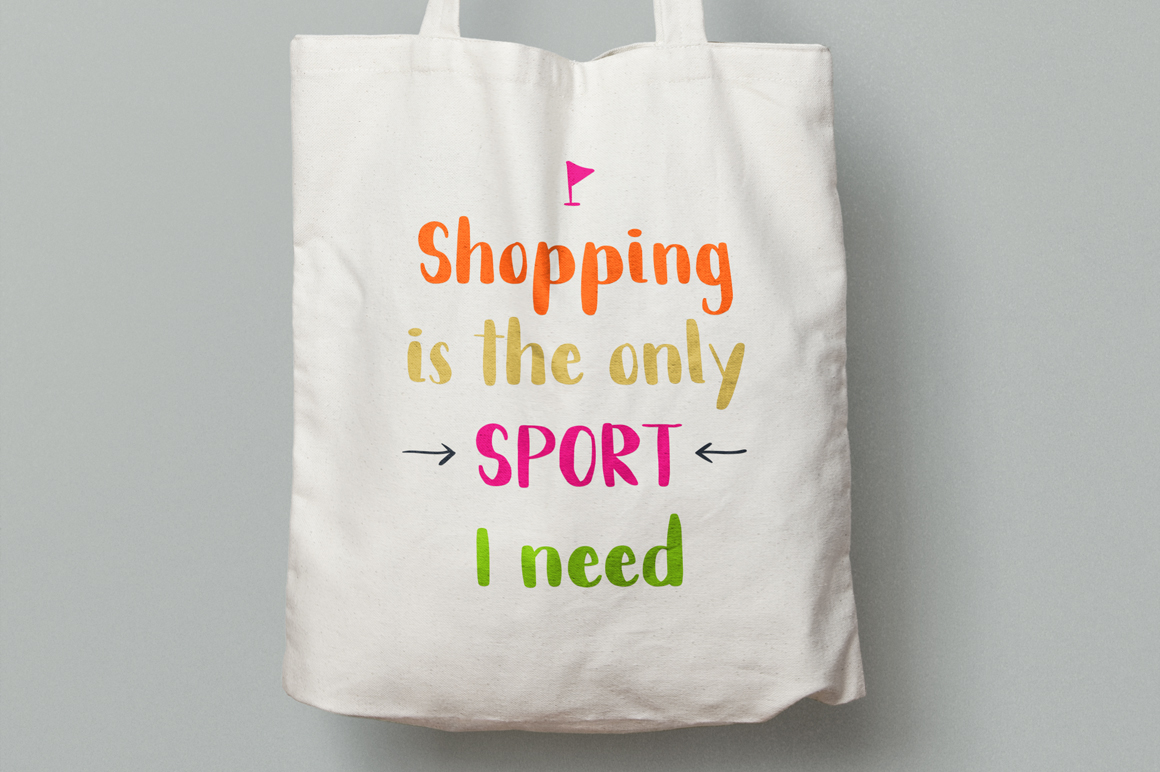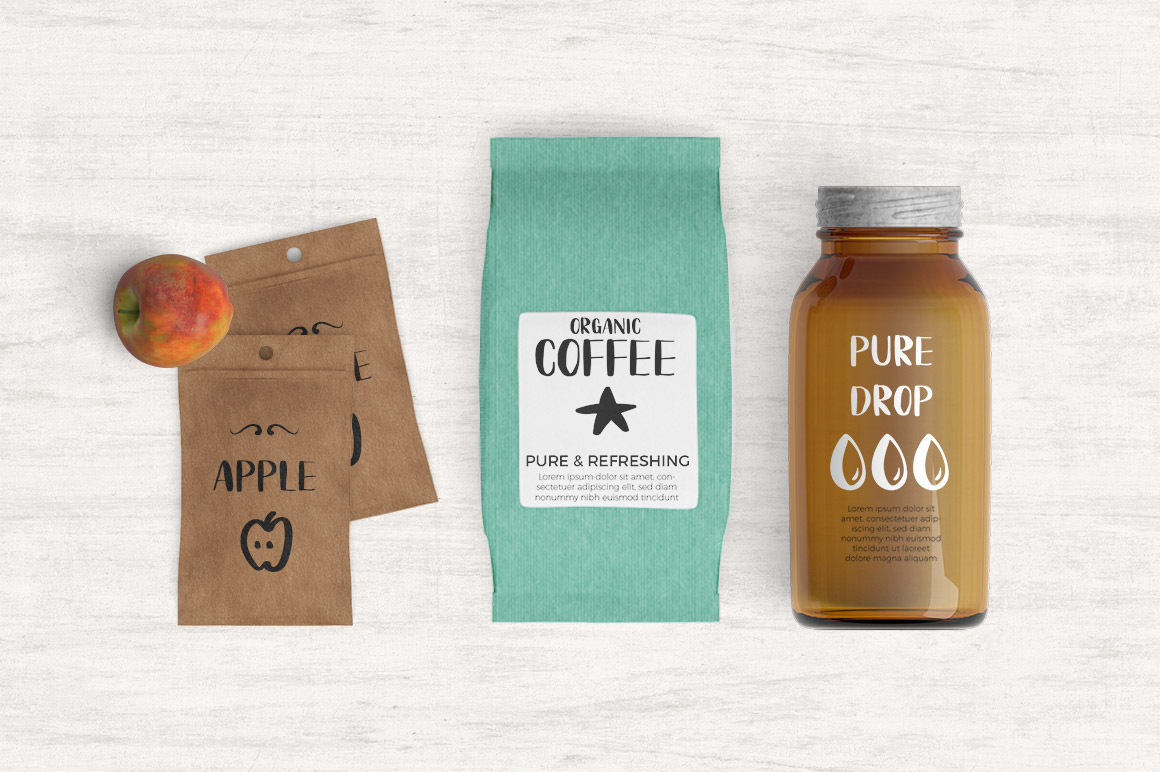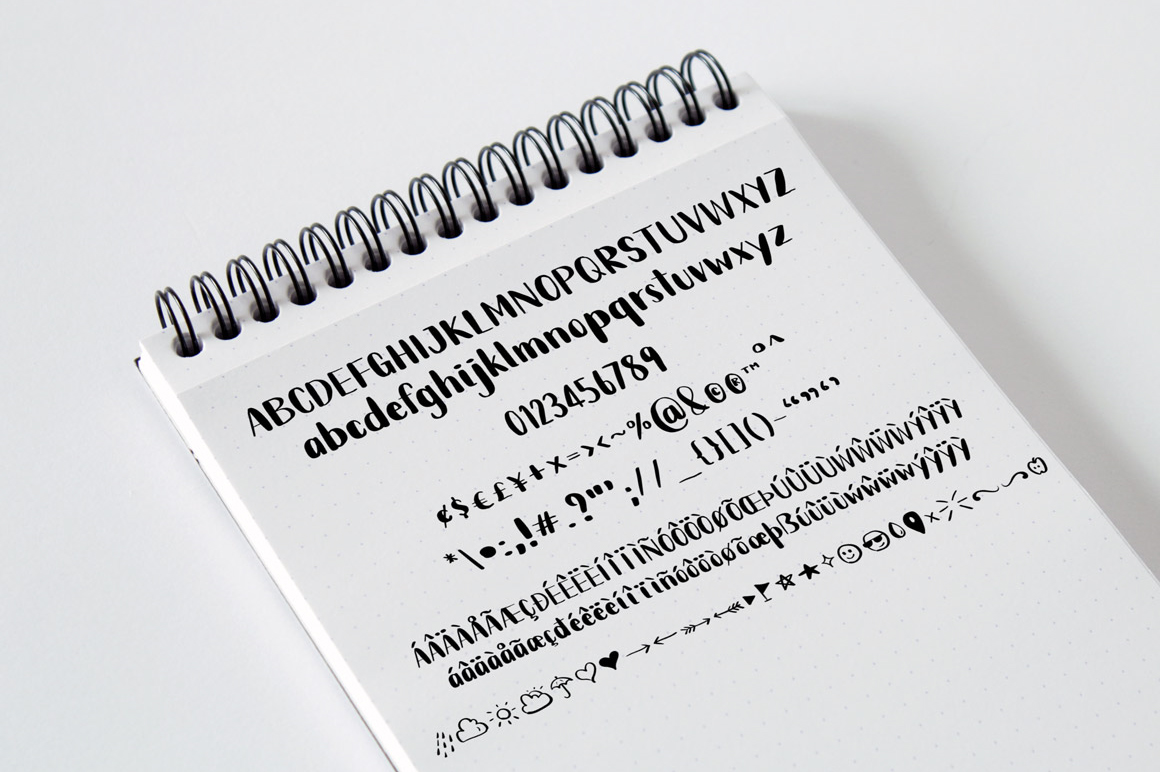
Introduction to Rainy Day Font
Do you remember those moments when a rainy day inspired you to be more creative? Perhaps you found yourself scribbling down lyrics or jotting down ideas for your next project while listening to the soothing sound of raindrops on the roof. For designers, rainy days can be a treasure trove of inspiration, and one of the best design resources to tap into that feeling is the Rainy Day Font.
This beautiful handwritten script typeface is designed to evoke a sense of calm and relaxation, making it perfect for creative projects that require a touch of elegance and sophistication. With its high-quality design and transparent background, the Rainy Day Font is a valuable addition to any designer’s toolkit, allowing them to add a personal touch to their work with ease.
Key Features of Rainy Day Font
- Unique, hand-drawn design with a whimsical touch, perfect for creative projects that require a touch of personality.
- Perfect for use in digital design projects, such as logos, branding materials, and social media graphics, due to its modern and eye-catching style.
- Can be used in a variety of design contexts, from children’s books to fashion branding, thanks to its playful and versatile nature.
Honest Review: Rainy Day Font
I recently had the chance to work with the Rainy Day Font, and I have to say it’s been a game-changer for my creative projects. This font is a design resource that I would highly recommend to anyone looking for a unique and high-quality addition to their work.
- ✨ The Rainy Day Font has a very transparent background, which makes it easy to layer with other designs without any awkward edges.
- ✨ The font is incredibly versatile and can be used for a wide range of creative projects, from logos to print materials.
- ⚠️ The font is not as customizable as I would have liked, which can make it a bit tricky to achieve the exact look I want.
Overall, I’m really impressed with the Rainy Day Font. It’s a high-quality design resource that can add a lot of value to your creative projects. While it has a few limitations, I think it’s well worth the download, especially considering it’s free!
Tips for Getting the Most Out of Rainy Day Font
Use Rainy Day Font as a design resource for your next creative project. This high-quality font is perfect for adding a touch of elegance and sophistication to your designs. With a transparent background, you can easily overlay the font on top of images or other design elements. Don’t forget to download the font for free to get started.
Rainy Day Font is perfect for a variety of design projects, including wedding invitations, birthday cards, and business logos. You can also use it to create social media graphics, posters, and flyers. With its high-quality design and transparent background, Rainy Day Font is a versatile design resource that can be used in a range of creative projects.